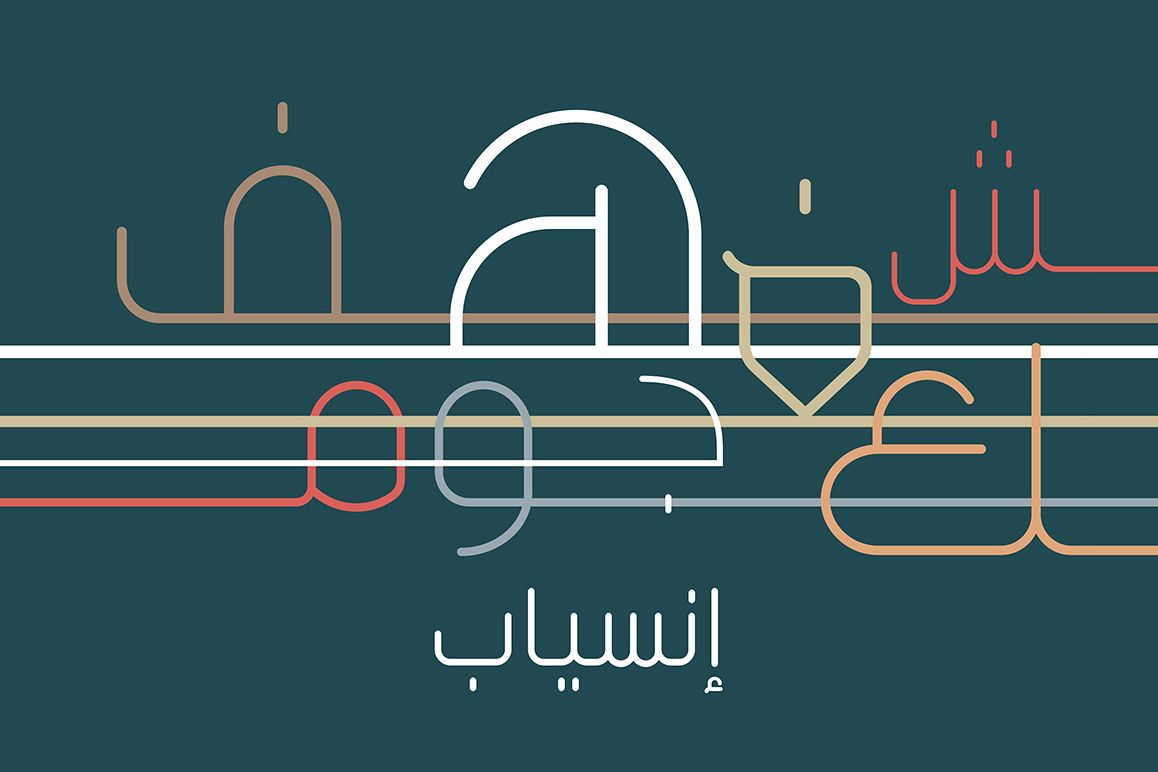
Inseyab - Arabic Typeface
Inseyab is an Arabic typeface that fuses Kufic geometry with contemporary style in an elegant design. The name Inseyab comes from the Arabic word for ‘Flow’ and this name is believed to reflect simplicity and smoothness of letterform movements. The typeface consists of three weights (Light, Regular and Bold), and it suits creative projects and web design. Inseyab supports Windows, Mac and mobile applications.